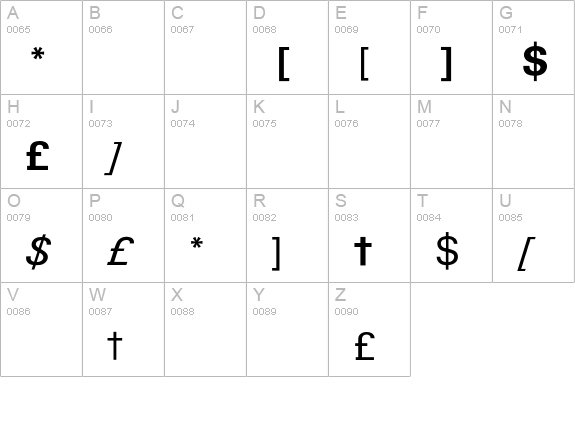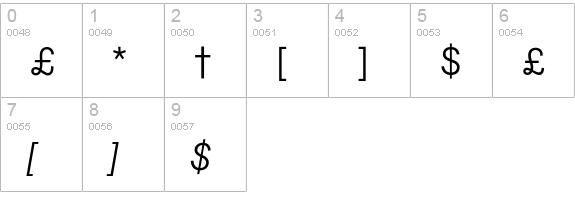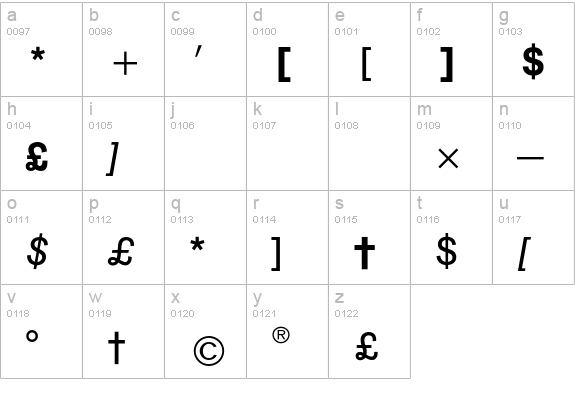
Zusatzscheibe Osteuropa is a beautifully crafted font that captures the essence of Eastern European typography with its unique and intricate design elements. This font exudes a sense of cultural richness and historical significance, making it a perfect choice for projects that require a touch of heritage and authenticity. What makes Zusatzscheibe Osteuropa even more appealing is that it is available for free download at FontsMarket.com. This means that designers and enthusiasts alike can easily access this stunning font to enhance their creations without any cost. With its elegant curves and sharp edges, Zusatzscheibe Osteuropa is sure to make a statement in any design project, adding a touch of sophistication and style. Download this font today and elevate your designs to new heights with Zusatzscheibe Osteuropa.